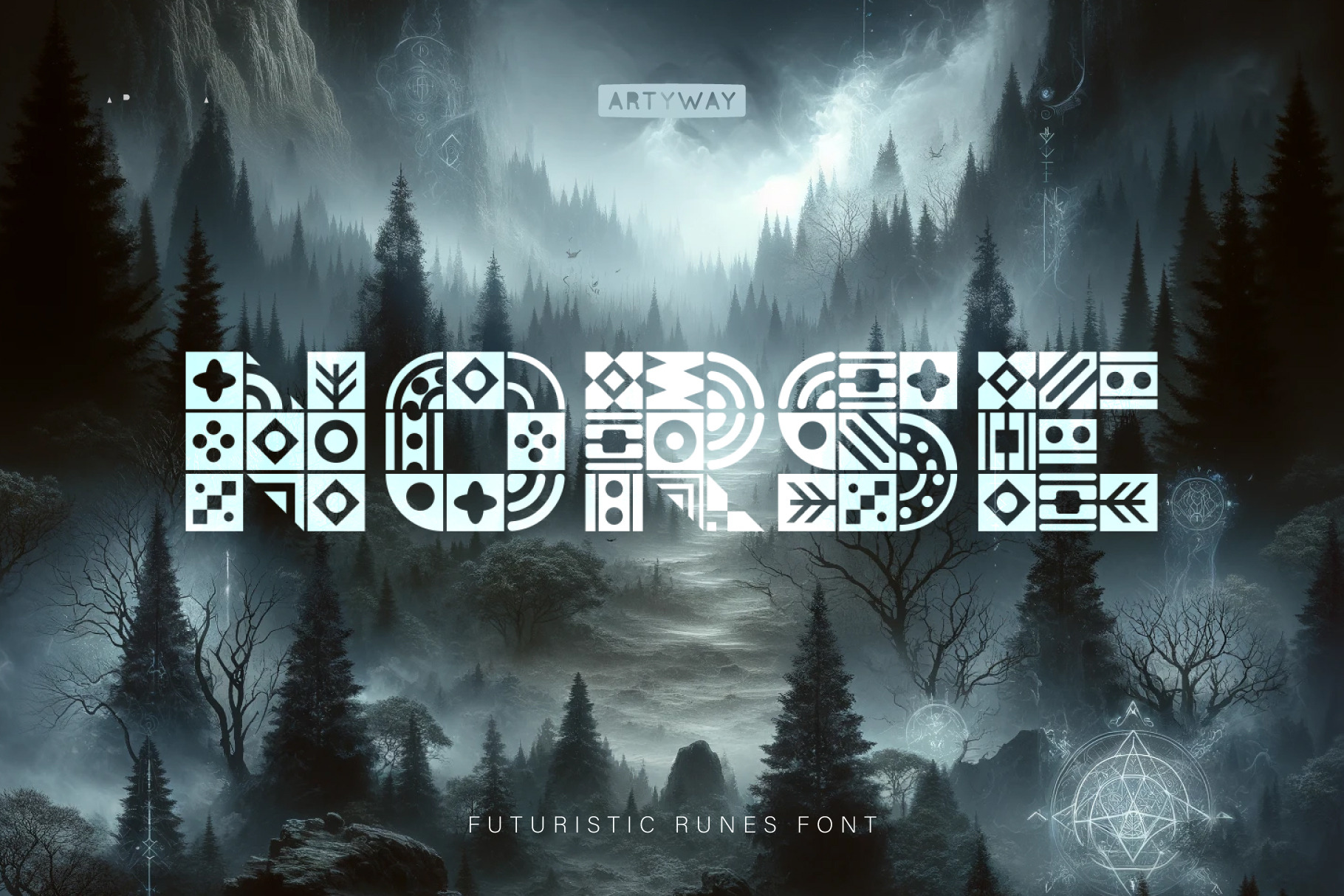
Norse Rune Font
The Norse Font – Ancient Mysticism Meets Modern Design
Unveil a perfect blend of ancient runic symbols and sleek geometric shapes with the Norse Font. This enigmatic typeface reimagines traditional mysticism through a contemporary lens, making it an essential tool for designers who want to inspire curiosity and intrigue.
- Thematic game design and fantasy worlds
- Esoteric book covers and mystical branding
- Product packaging with a magical or futuristic edge
- Invitations for mystical events or techno-futuristic parties
- Headlines and monograms that stand out
- Unique characters combining runic elements with modern aesthetics
- Full set of uppercase letters and geometric symbols
Elevate your projects with the timeless mystery of the Norse Font. Its unique style ensures your designs captivate the imagination of any audience!